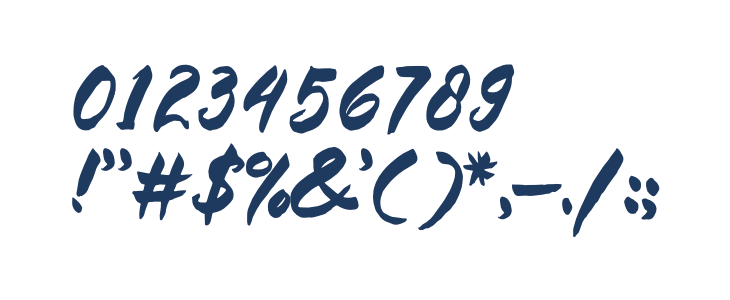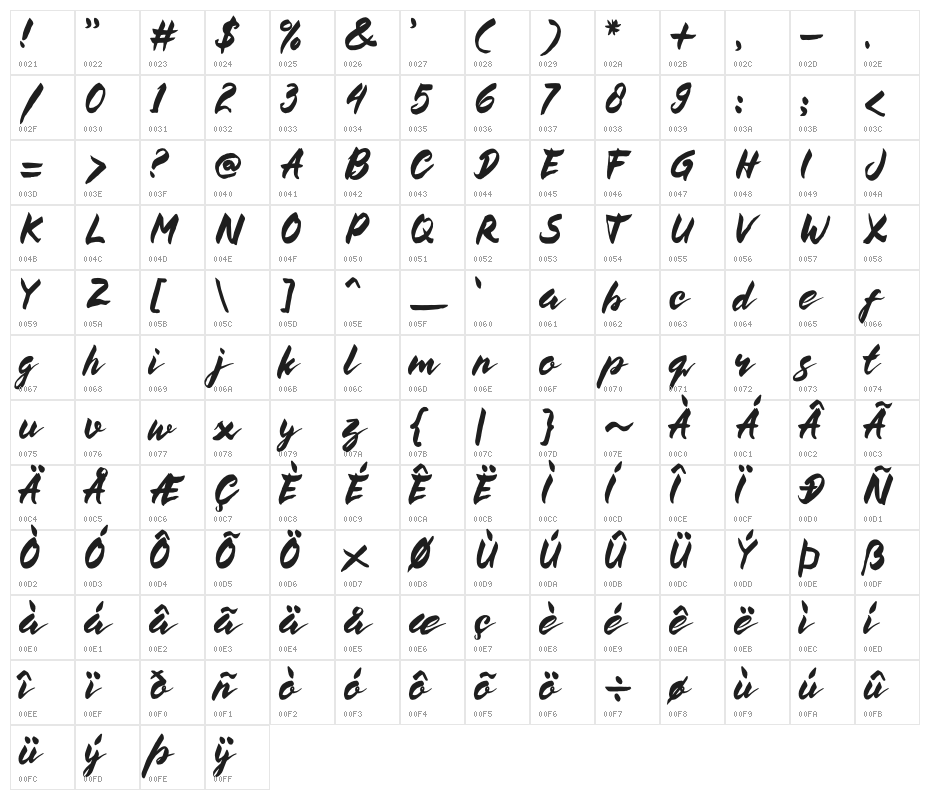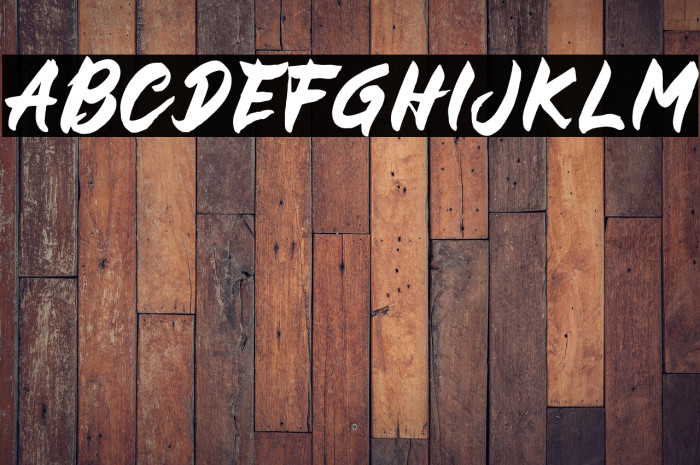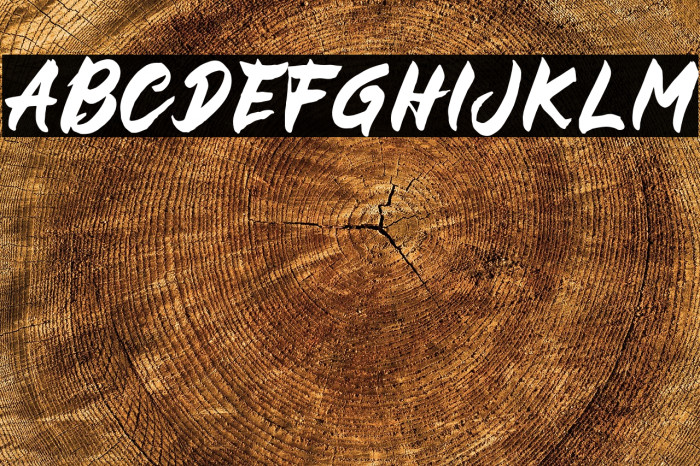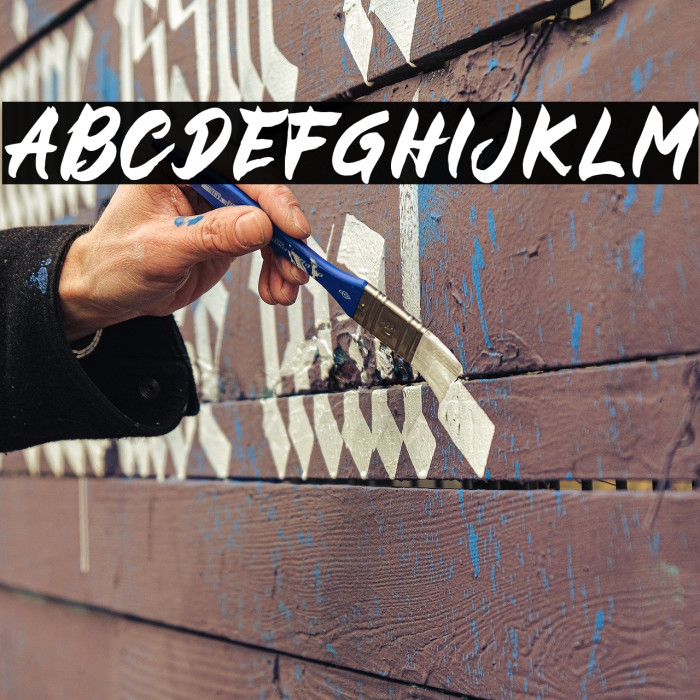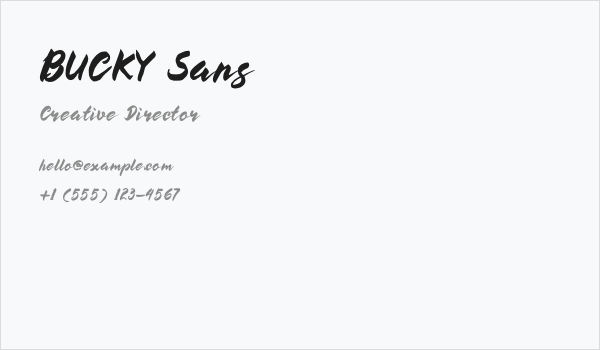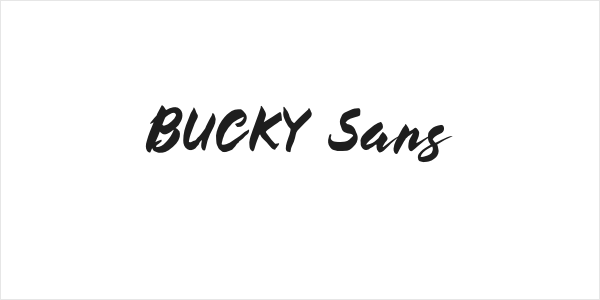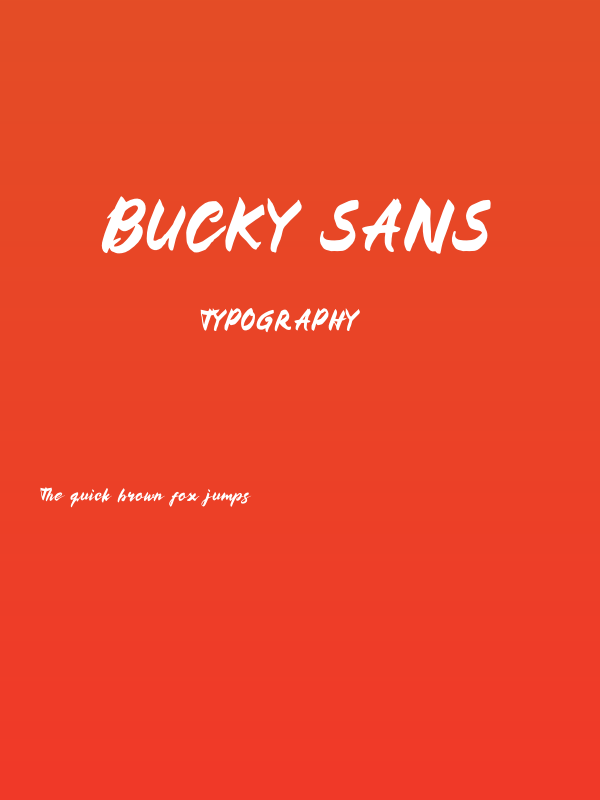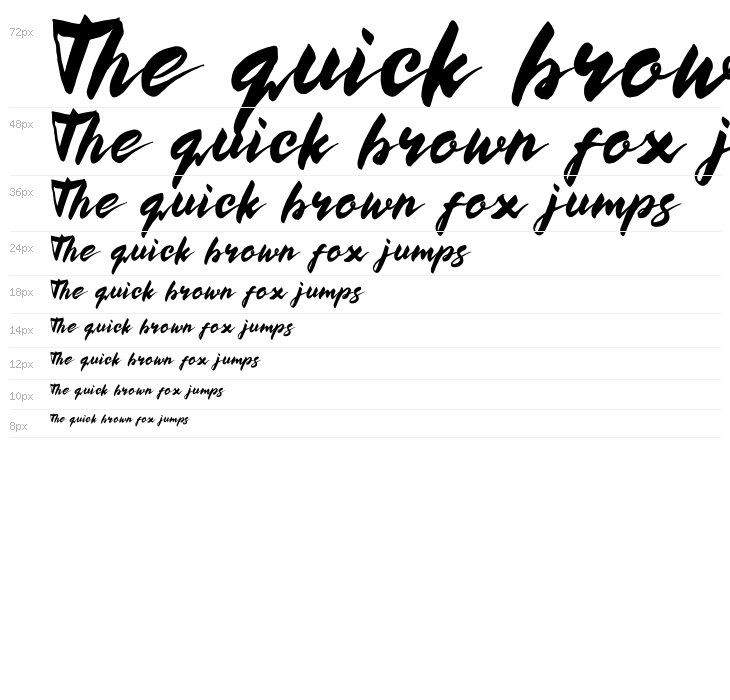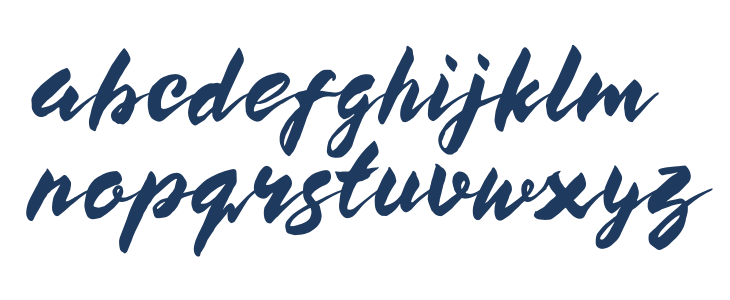
BUCKY Sans Font
BUCKY Sans Description
This font features a bold and dynamic script style with a handwritten appearance. The letters are connected, giving it a fluid and continuous look, reminiscent of calligraphy. The strokes are thick and expressive, adding a sense of energy and movement to the text. The uppercase letters are slightly larger and more pronounced, while the lowercase letters maintain a consistent flow. The numbers and special characters follow the same bold and lively style, ensuring a cohesive look across all elements. This font is ideal for creating impactful and attention-grabbing designs.